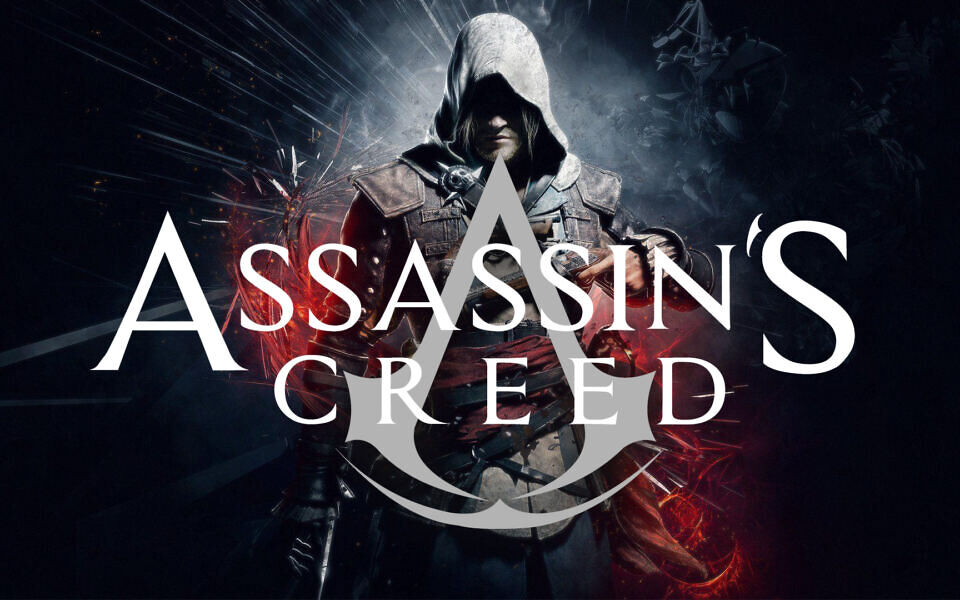
Assassin’s Creed Logo Font
Assassins Creed Logo Font
“Assassin” is a classic serif typeface inspired by the iconic Assassin’s Creed aesthetic, offering a refined and timeless look. Its sharp serifs and balanced letterforms create an elegant, slightly dramatic style that stands out in titles and branding. Suitable for logos, posters, and editorial design, it blends sophistication with a subtle historical feel.
This font is very close to the original Assassin’s Creed Logo Font. It also includes special characters to create the perfect logo.